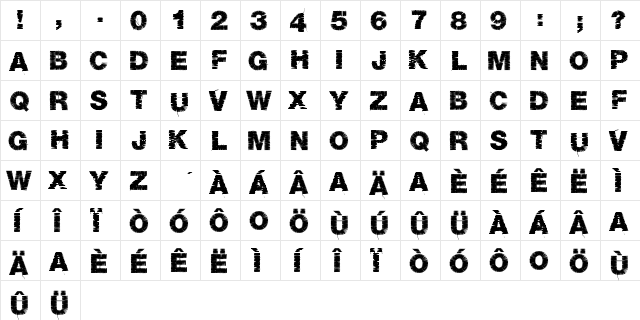
Base 05 Regular
Design Context for Base 05 Typeface
Base 05 is a composed and adaptable typeface that performs quietly and consistently across a wide range of design contexts.